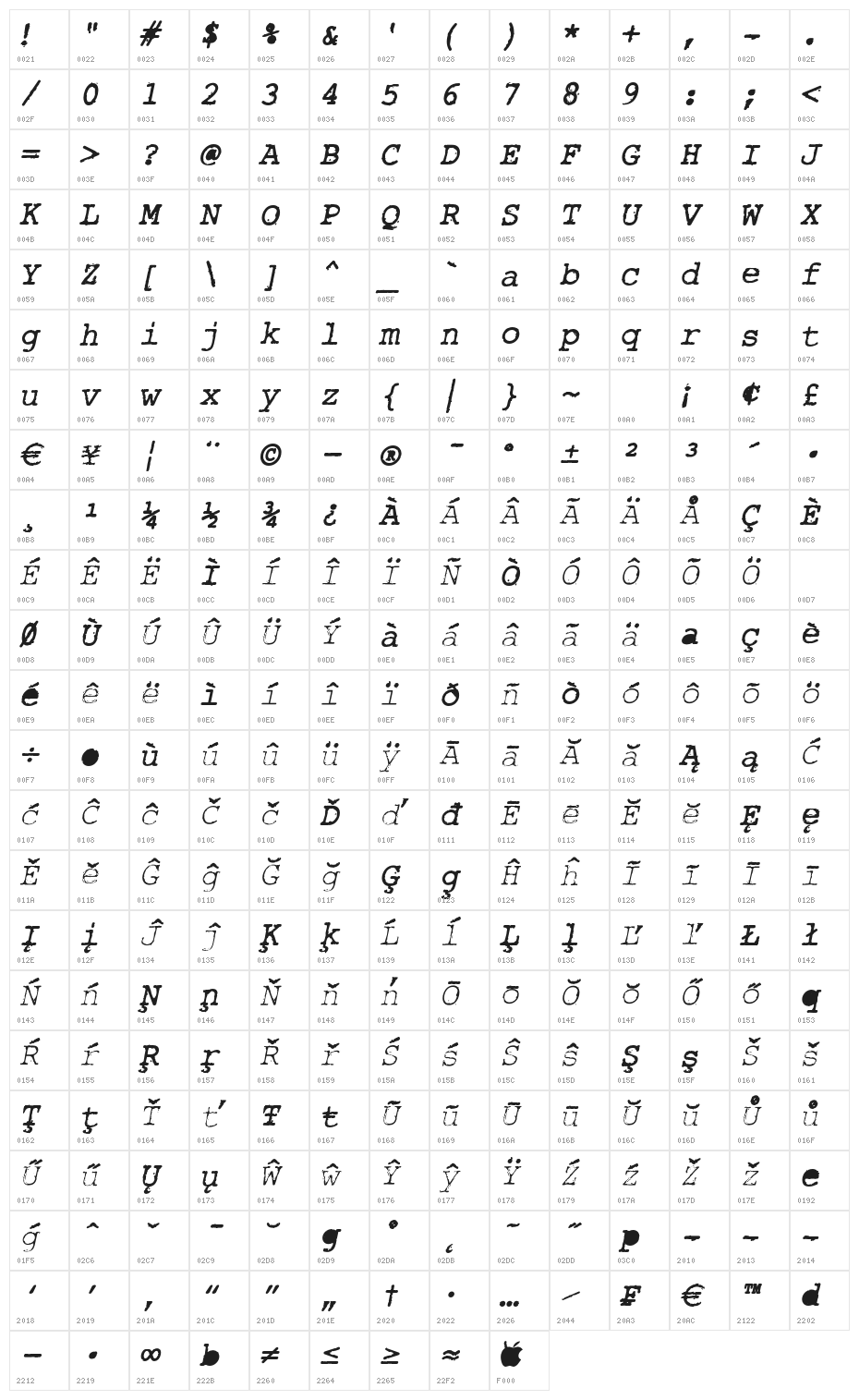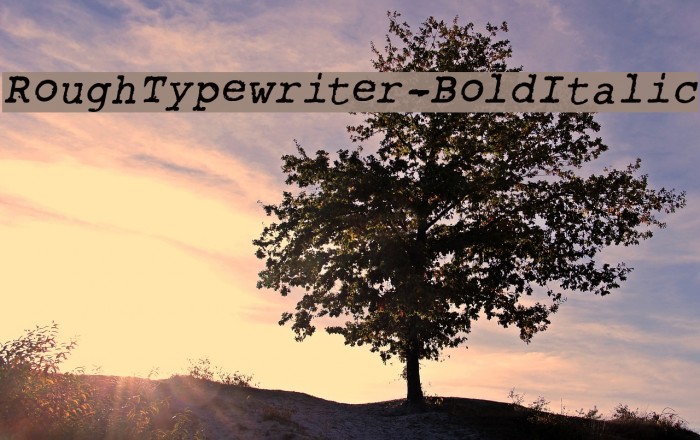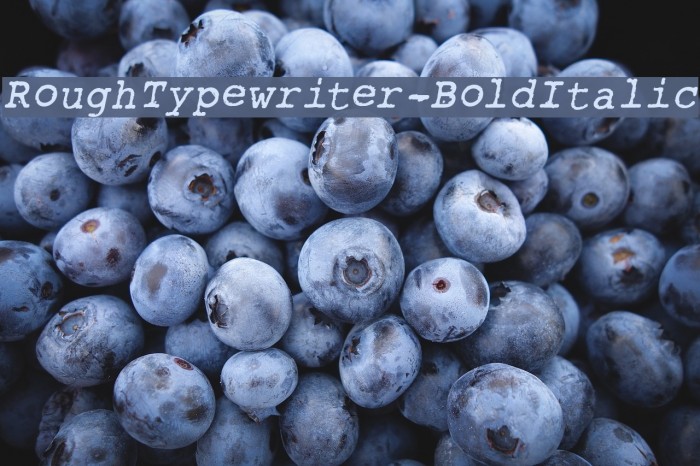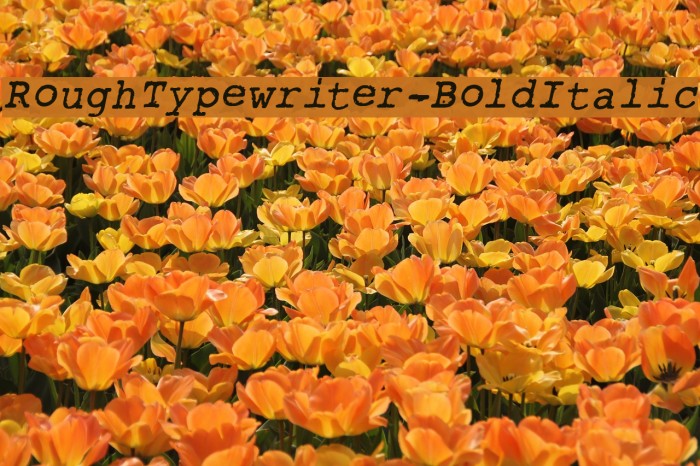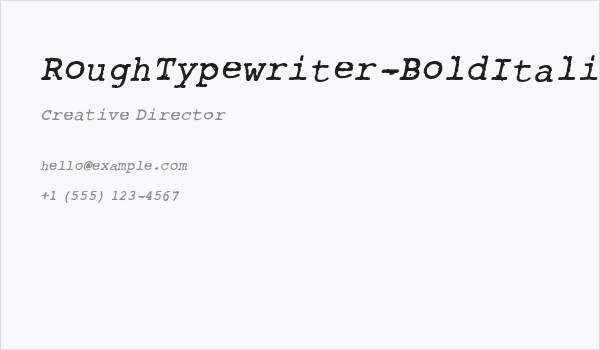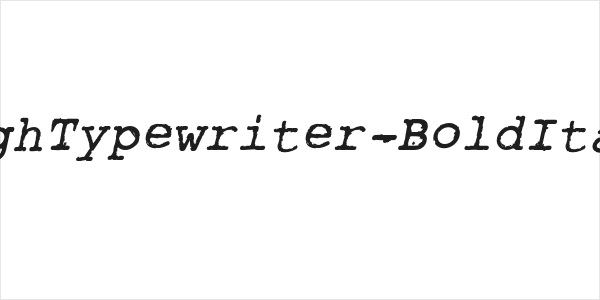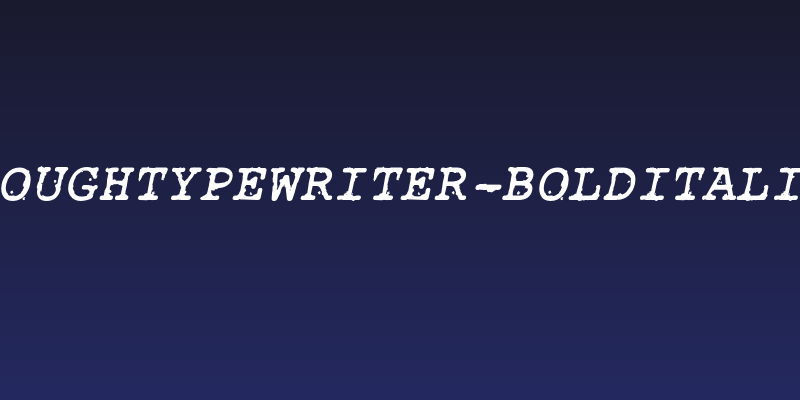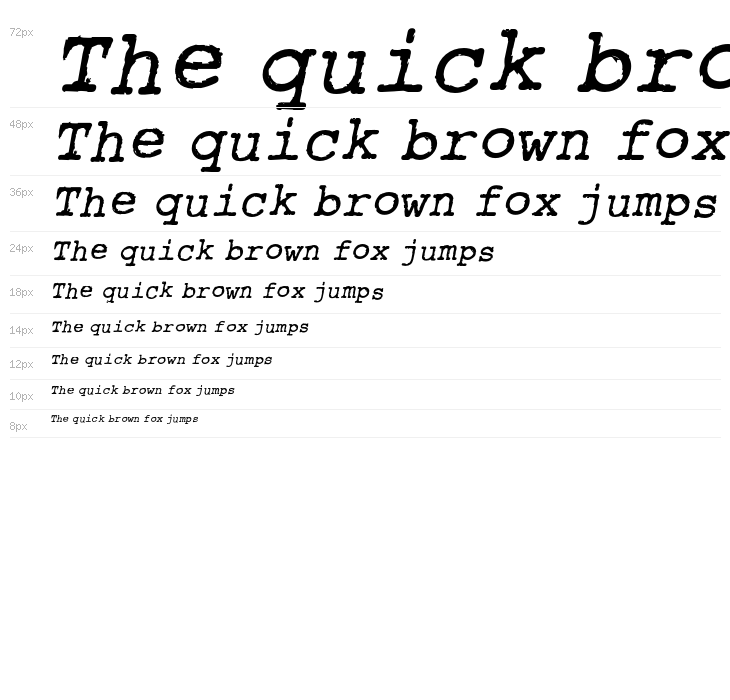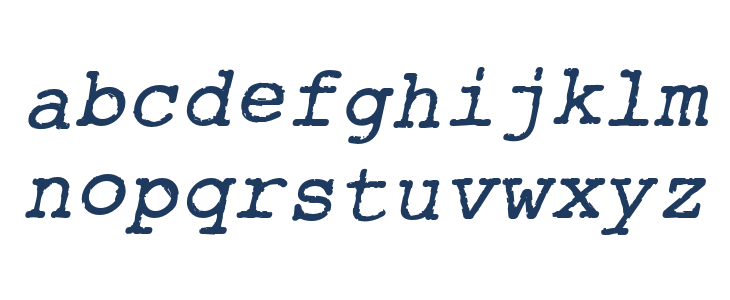
RoughTypewriter-BoldItalic Font
RoughTypewriter-BoldItalic Description
This font exudes a vintage typewriter aesthetic with a bold and italicized style. The characters are slightly distressed, giving them a rough, textured appearance that mimics the look of ink on paper. The uppercase and lowercase letters maintain a consistent style, with rounded edges and a uniform thickness that adds to the retro feel. Numbers and special characters are equally bold and maintain the same distressed texture, ensuring a cohesive look across all glyphs. The font's unique style makes it ideal for projects that require a touch of nostalgia or a handcrafted feel.
| Proposed Projects | Ideal for vintage-themed designs, retro posters, typewriter-inspired graphics, and projects requiring a handcrafted or nostalgic touch. |